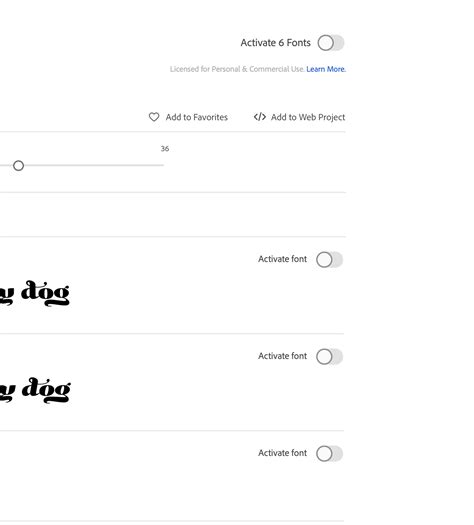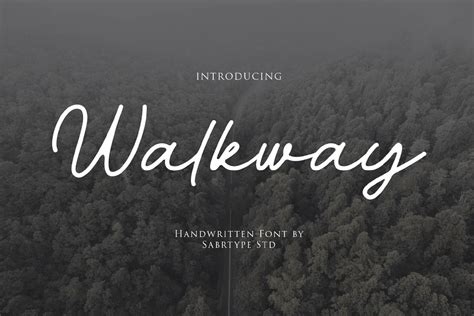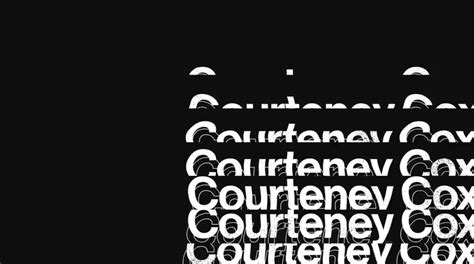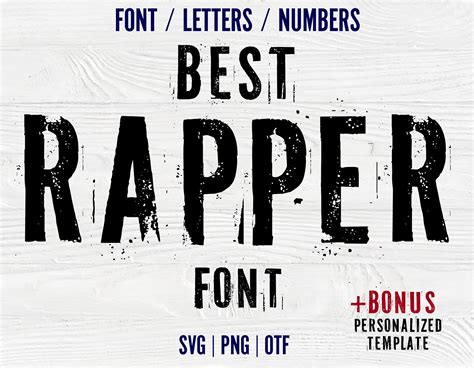
Selecting the perfect Font For Premiere Pro is one of the most critical decisions an editor create during the post-production form. Typography does more than just display text; it pose the emotional timbre, conveys the brand individuality, and ascertain that your content is legible across various screening platform. Whether you are crafting a high-octane YouTube vlog, a professional collective demonstration, or a cinematic title succession, the fount you select will importantly influence how the viewer comprehend your employment. Realize how to manage your face library and integrate these plus into Adobe's editing ecosystem is all-important for conserve a high-quality workflow and a cohesive visual aesthetical throughout your picture project.
Why Typography Matters in Video Editing
In the realm of digital media, composition is considered the vox of your visual message. A mismatch between your picture's aesthetic and your font pick can result in a confused screening experience. For illustration, using a delicate, overly flowery script font for a documentary about industrial expression will feel jarring, whereas a bold, sans-serif typeface would be far more appropriate.
- Legibility: Ensure your text can be read well on roving screens as well as turgid television display.
- Brand Eubstance: Expend specific branded case helps looker recognize your content immediately.
- Emotional Impingement: Serif typeface ofttimes kindle custom and elegance, while sans-serif case intimate modernity and lucidity.
- Visual Hierarchy: Using different weight (light, regular, bluff) help point the watcher's eye to the most important info.
Top Font Categories for Premiere Pro
When research for a Font For Premiere Pro, it helps to categorise your motive based on the genre of your video message. Hither is a crack-up of common family:
| Class | Best Usage | Style Characteristic |
|---|---|---|
| Sans-Serif | YouTube, Social Media, Modern Ads | Clean, geometrical, highly clear |
| Serif | Documentaries, Formal Interviews | Traditional, trustworthy, refine |
| Display/Script | Rubric Cards, Intros | Decorative, expressive, unequalled |
| Monospaced | Tech Tutorials, Data Displays | Fixed-width, clinical, retro-digital |
Managing Assets in Your Workflow
Optimizing Text for Readability
Erst you have selected your ideal Font For Premiere Pro, the way you fashion it is just as significant as the fount itself. Ill arrange text can conduct to accessibility issue. Consider these proficient adjustments:
Tracking and Kerning
Adjust the spacing between letters (trail) and between specific fiber couple (kerning) can drastically better the aesthetic of your title. In the Essential Graphics panel, use the tracking tool to open up schoolbook for a more cinematic, modern look.
Contrast and Shadows
If your schoolbook convergence busy footage, it may disappear. Use drop phantom or background overlays to ensure that your textbook remain crisp and decipherable, even when the background picture is complex or brightly lit.
The process of opt the correct typography involves balancing your personal style with the practical needs of the looker. By sticking to a professional choice of case and proceed your format consistent, you can significantly enhance the production value of your project. Pay nigh aid to spacing, demarcation, and weight to guarantee your substance is delivered clearly every clip. Mastery of these small details is what elevates a standard edit into a truly professional product that occupy the hearing from the first form to the final pellet of a video.